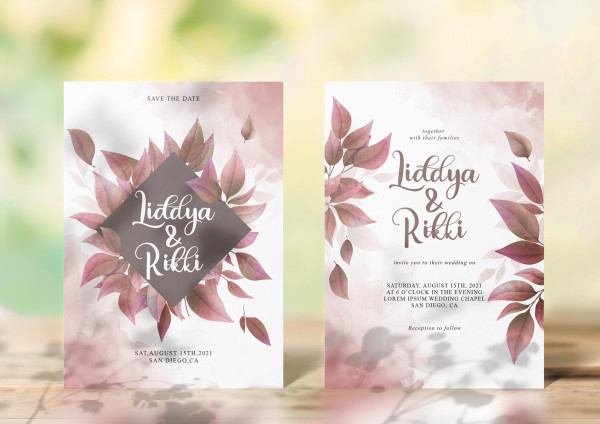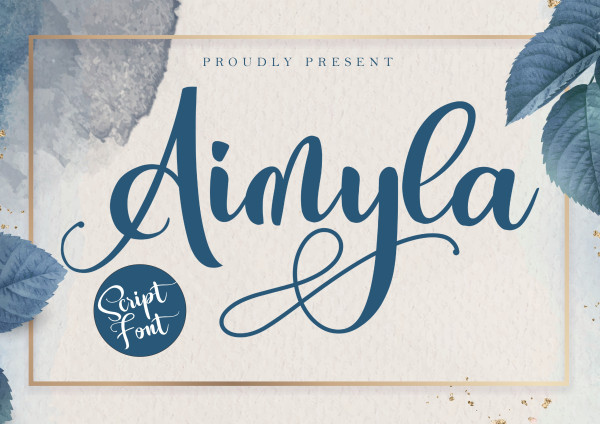
Aimyla Font
Aimyla Font is a vibrant script font with a playful and contemporary essence. Apply it to various elements like quotes and websites, and leverage additional clipart to enhance your design process with ease and enjoyment. Aimyla boasts an array of ligatures, adding an authentic handwritten touch to your creations.